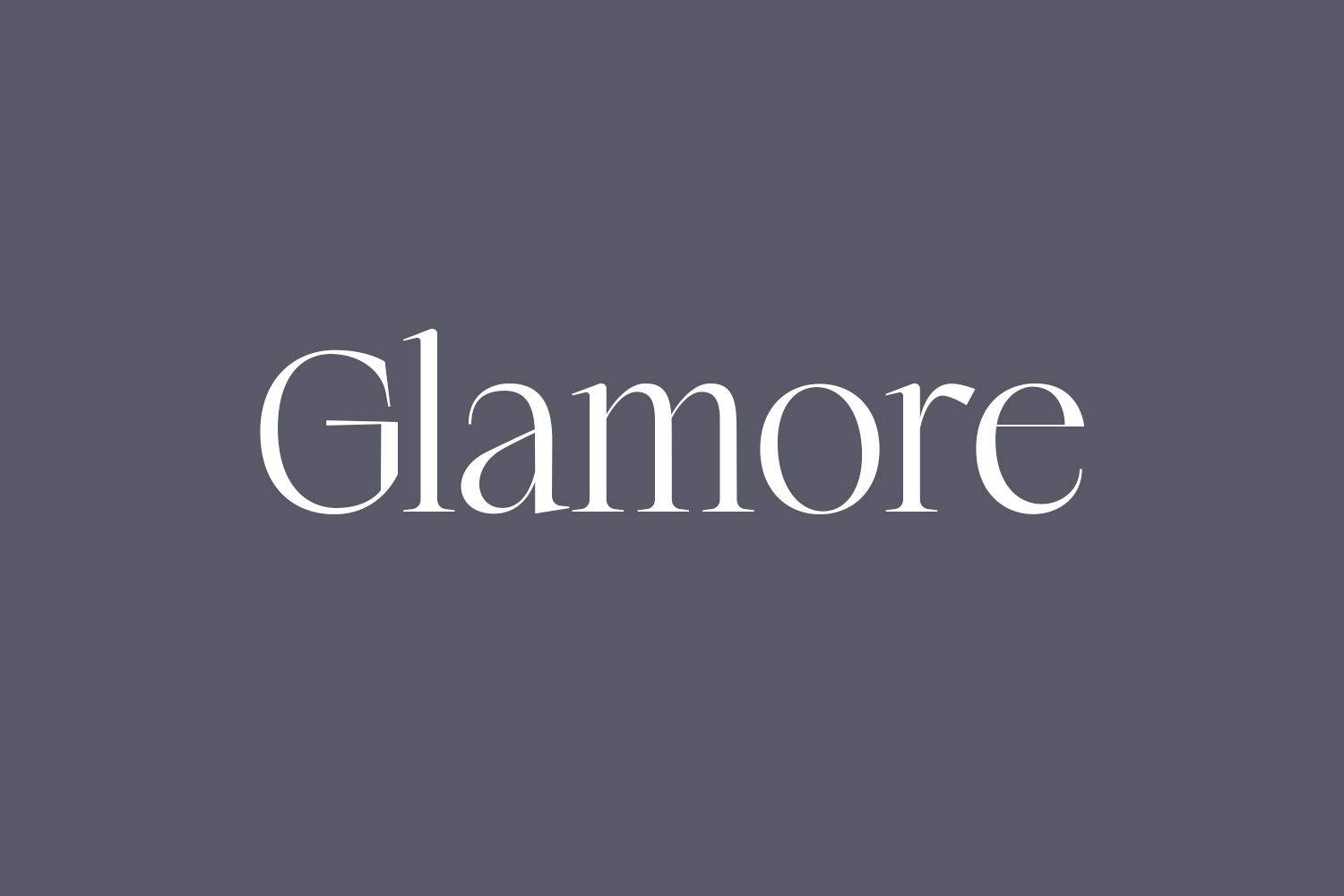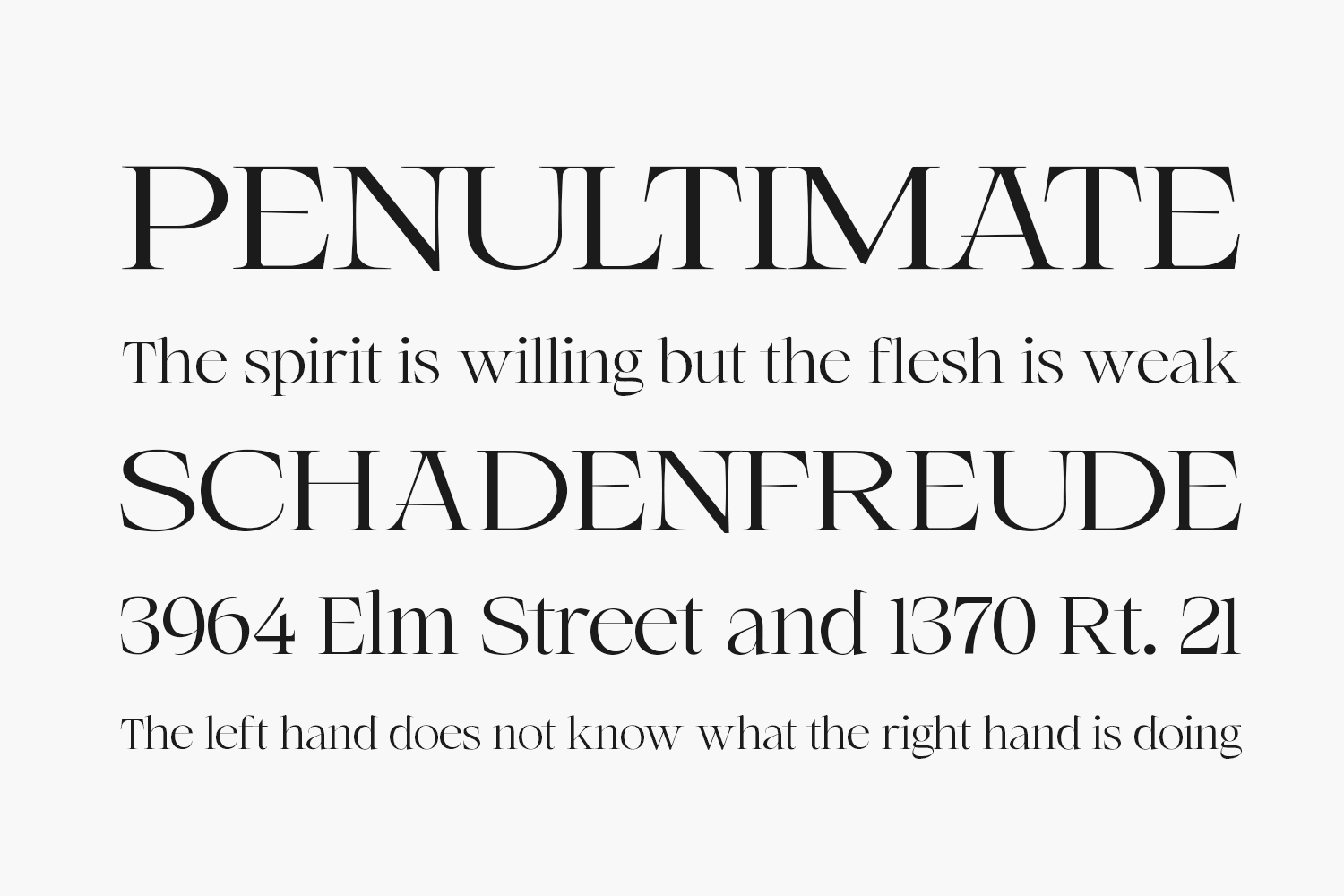
Glamore Free Font, a polished serif typeface, harmoniously combines traditional influences with a modern aesthetic. With its elegant craftsmanship, this font seamlessly complements a diverse array of projects, providing versatility and sophistication for your design needs. Download the font for free if you need it for personal use or purchase the full version for commercial use.